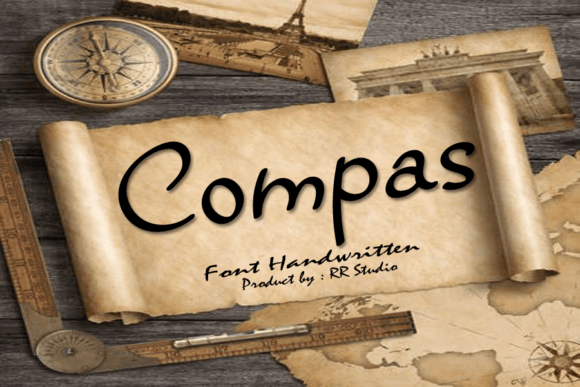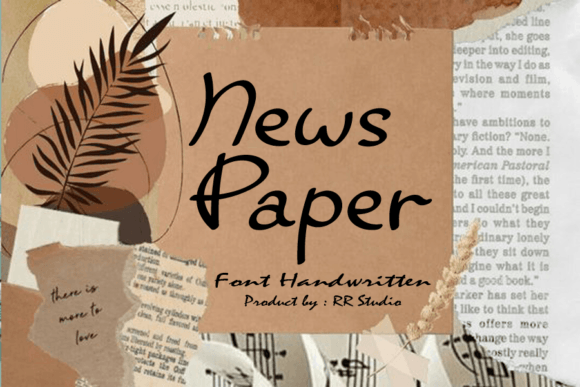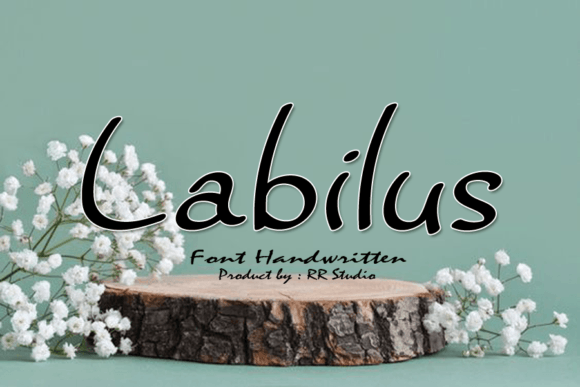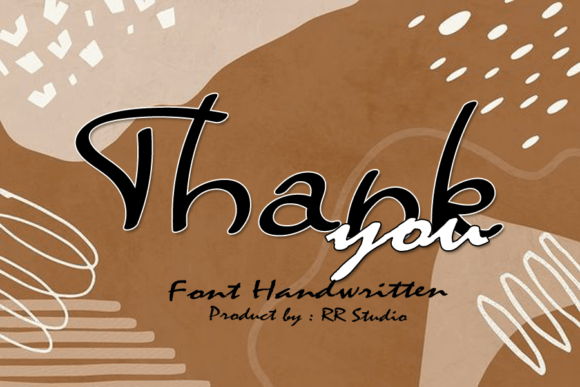
Begubal Font
About Begubal Font
**Experience Sweet Elegance with Begubal Handwritten Font**
Indulge in the sweetness of design with **Begubal**, a cursive handwritten font that exudes gentle elegance and effortless charm. This delightful font is crafted to add a touch of joy, romance, and sophistication to your creative projects, making each design a masterpiece. Let’s explore the enchanting world of **Begubal** and discover how its graceful curves and sweet demeanor can elevate your creations.
**Graceful Cursive Elegance:**
**Begubal** is a celebration of graceful cursive handwriting. Its flowing, interconnected letters create a harmonious rhythm, enhancing the elegance of any text it adorns. Each stroke is carefully crafted to evoke a sense of fluidity and sophistication, making it perfect for projects that require a touch of class and refinement. Whether you’re designing wedding invitations, romantic quotes, or upscale branding materials, **Begubal** lends an air of graceful elegance to every word.
**Timeless Romanticism:**
The romantic essence of **Begubal** is timeless. Its soft curves and gentle slant evoke feelings of love, making it an ideal choice for projects that celebrate romance and affection. Whether you’re crafting heartfelt love letters, anniversary invitations, or tender expressions of emotion, **Begubal** captures the essence of romanticism, infusing your designs with a touch of heartfelt sentiment.
**Versatile Charm:**
**Begubal** is as versatile as it is elegant. Its charming demeanor allows it to effortlessly adapt to a wide range of design concepts. From whimsical wedding stationery to cozy café menus and delicate packaging, this font enhances the charm of various projects. Its adaptability ensures that your designs, no matter the theme, will be imbued with a delightful, handwritten allure that captivates viewers and leaves a lasting impression.
**Crafting Joyful Designs:**
The essence of joy is intricately woven into every letter of **Begubal**. Its playful yet refined nature creates a sense of delight, making it perfect for projects that aim to spread happiness and positivity. Whether you’re designing greeting cards, playful posters, or cheerful social media graphics, **Begubal** adds a touch of joy, turning ordinary designs into delightful visual experiences that bring smiles to faces.
**Embrace Elegance with Begubal:**
Are you ready to infuse your designs with the elegance of cursive handwriting and the sweetness of romance? **Begubal** invites you to embrace its graceful curves and timeless charm, transforming your creative projects into expressions of refined elegance and joyful romance. Let each stroke of **Begubal** inspire your creativity and bring a touch of sophistication to your designs. Experience the joy of elegant typography with **Begubal**—where sweet elegance meets graceful charm.